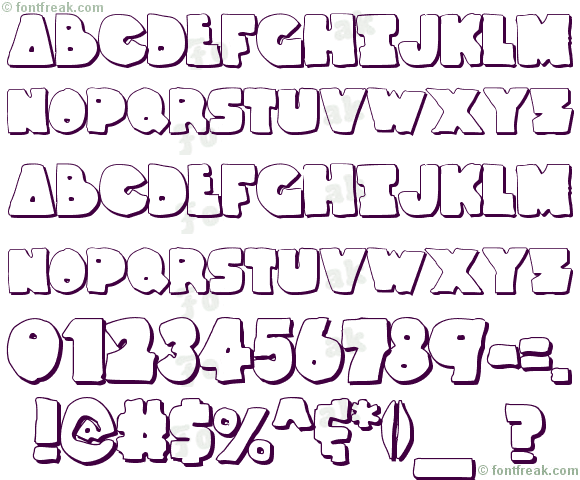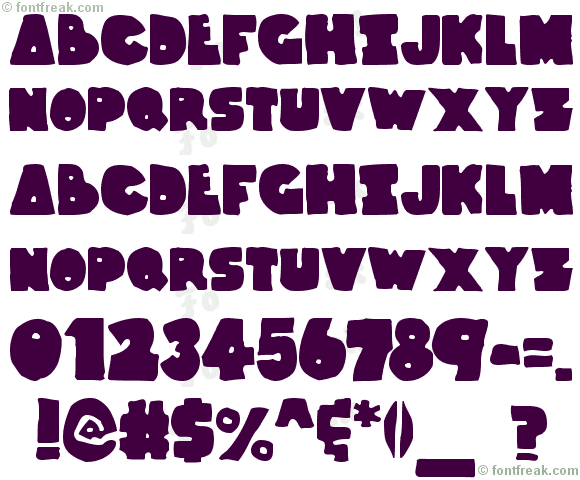
Thunder Thighs
About Thunder Thighs
Thunder Thighs is a captivating display font that captures attention with its bold, playful design. This freeware typeface, created in 2001 by the talented S. John Ross, embodies a unique character that makes it an excellent choice for various creative projects. The font features a chunky, rounded design with a strong stroke weight, lending it a robust and eye-catching presence. The lack of sharp edges and the soft curves create an approachable aesthetic, making it perfect for informal and fun applications. Decorative elements are minimal yet effective, contributing to its distinctive look without overwhelming the viewer.
This font shines in specific use cases, such as eye-catching movie posters, vibrant event flyers, quirky restaurant menus, and engaging social media graphics. Its playful nature can draw in audiences, making it a favored choice among graphic designers and content creators looking to infuse personality into their work. Small business owners can also leverage the Thunder Thighs font to craft memorable branding materials that stand out in a crowded marketplace.
The target audience for this font encompasses graphic designers seeking unique typefaces for creative projects, small business owners aiming for distinctive branding, and content creators who want to add a touch of whimsy to their designs.
What sets the Thunder Thighs font apart is its ability to convey a sense of fun and creativity while remaining highly readable. Its bold, rounded letters make a statement without sacrificing clarity, ensuring that your message resonates with your audience. For those looking to enhance their design arsenal, the Thunder Thighs font free download offers an excellent opportunity to incorporate a unique and visually striking typeface into various projects, ensuring that your designs leave a lasting impression.